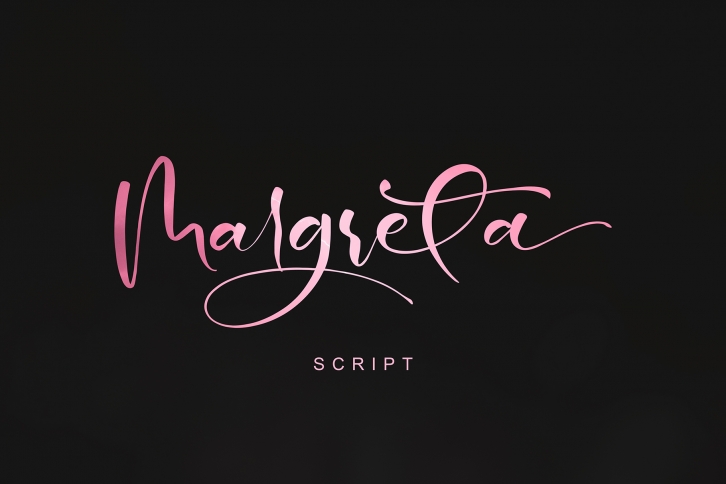
Margreta is a beautiful font that was designed by Pineungtype. It's a great choice for designers and creatives who need such a font. It was released on January 21, 2019 and the file size is 13.98 MB. Margreta may give a more youthful, expressive and casual look to your project. It is a very beautiful, refined, elegant, and high-quality font.